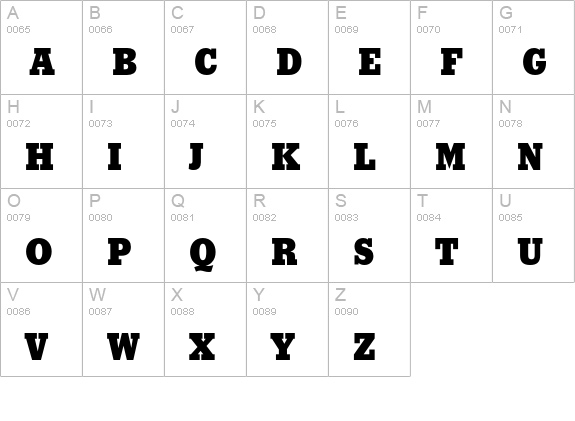
StymieEF-Black is a maximum-weight, dramatic variant in the StymieEF typeface family \xE2\x80\x94 well suited to maximum-impact headlines, posters, and packaging.
StymieEF-Black is a stunning and versatile font that exudes elegance and sophistication. With its bold and powerful appearance, this typeface is perfect for making a statement in headlines, titles, and logos. The sleek and modern design of StymieEF-Black commands attention and adds a touch of luxury to any project. What makes StymieEF-Black even more appealing is that it is available for free download at FontsMarket.com. This means you can enhance your designs with this premium font without any cost, making it a fantastic choice for designers looking to elevate their work without breaking the bank. Don't miss out on the opportunity to add StymieEF-Black to your font collection and take your designs to the next level.